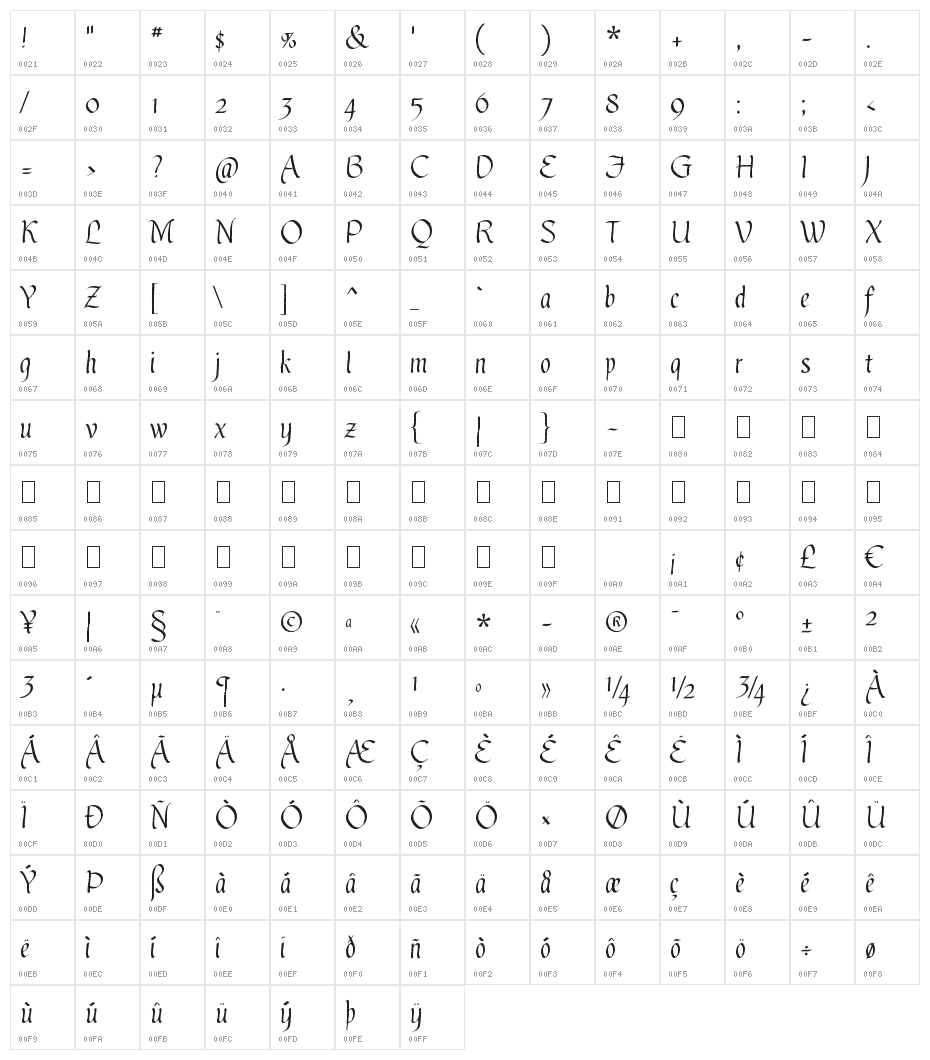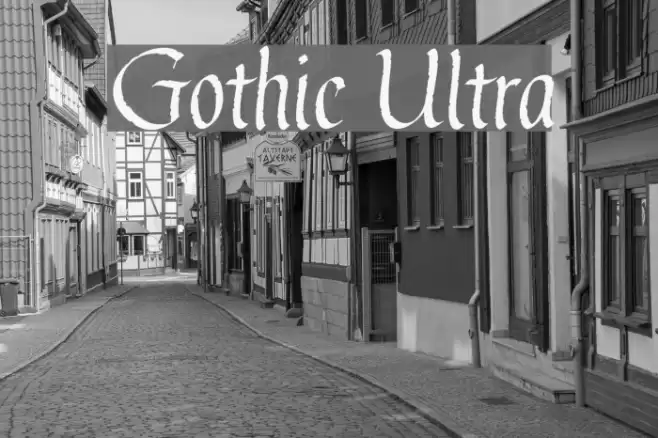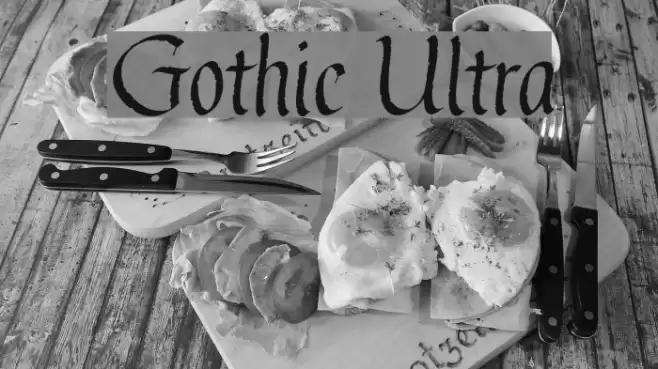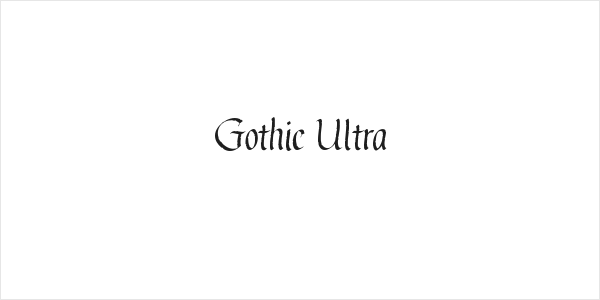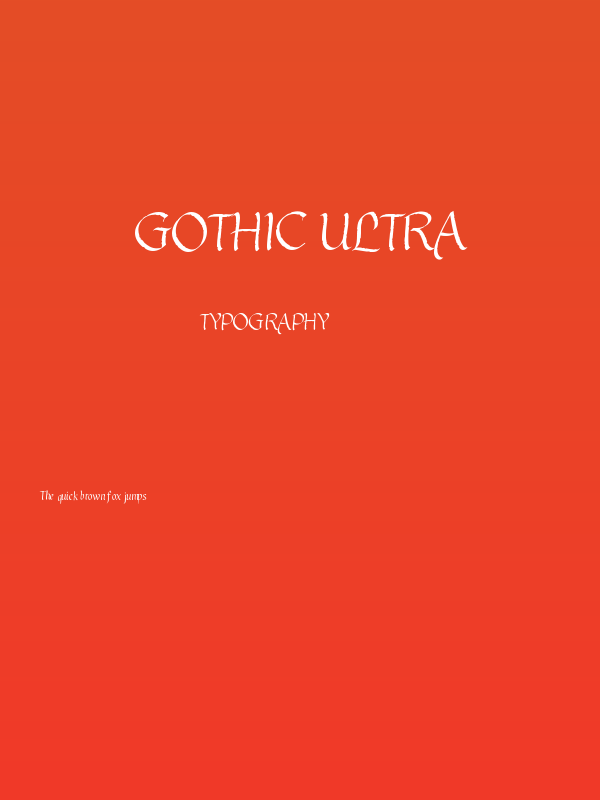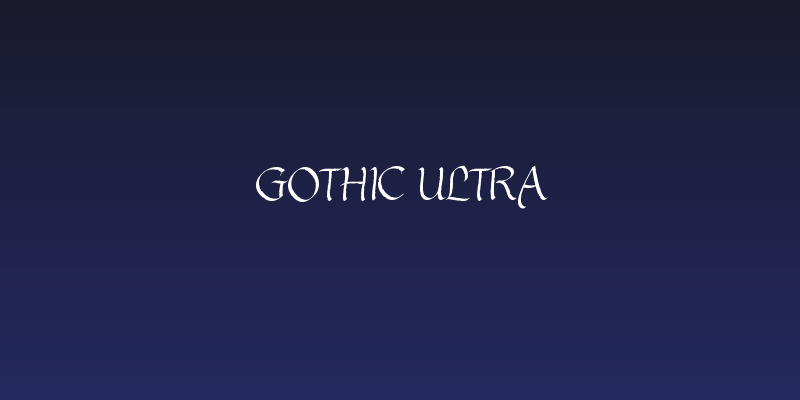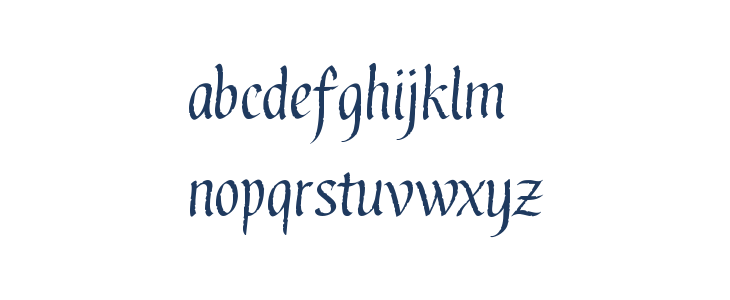
Gothic Ultra Font
Gothic Ultra Description
This font features a dramatic and expressive style, characterized by its sharp, angular strokes and high contrast between thick and thin lines. The uppercase letters exhibit a strong presence with their bold, sweeping curves and pointed serifs, reminiscent of traditional Gothic calligraphy. The lowercase letters maintain a consistent flow, with elegant loops and a slightly condensed form that enhances readability. Numbers and special characters are crafted with the same attention to detail, ensuring a cohesive look across all elements. This font's distinct personality makes it suitable for projects that require a touch of historical or artistic flair.
Overall StyleVintage
Use CaseLogos, Headlines, Decorative text
Proposed ProjectsIdeal for use in branding, posters, book covers, and any design that seeks to evoke a sense of history or artistry.